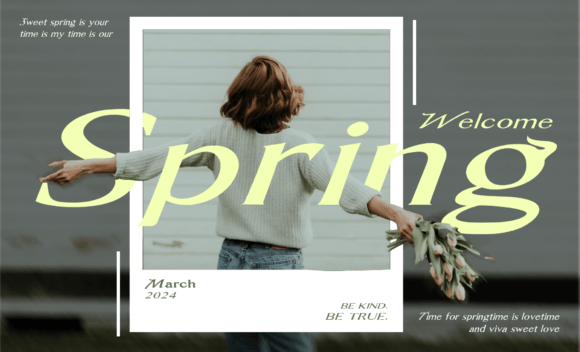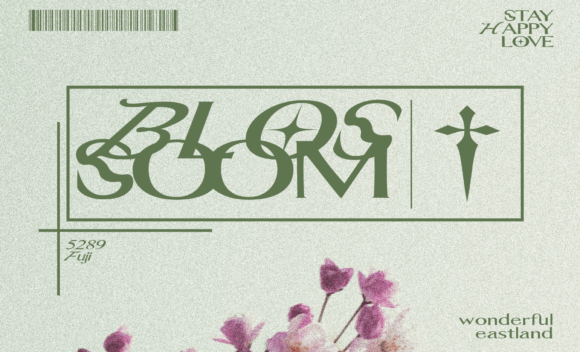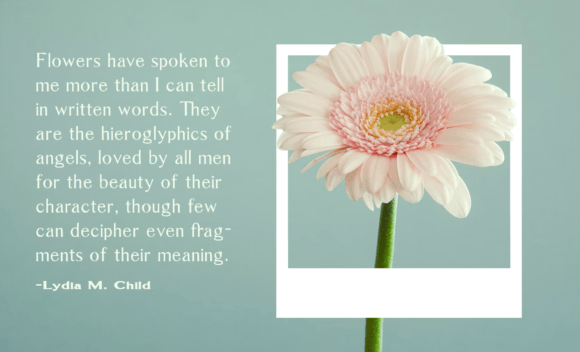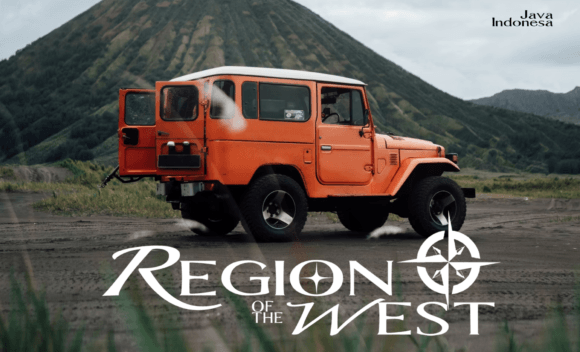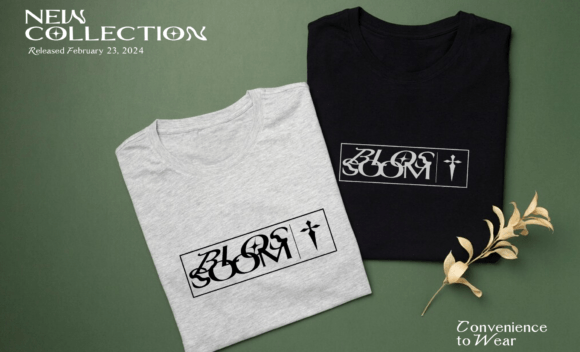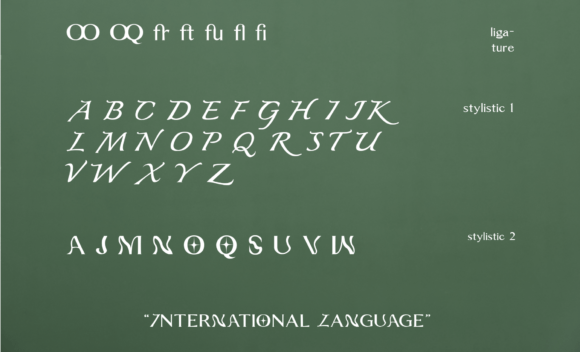
Introduction to Gwenda Times Font
Have you ever found yourself scrolling through a design feed, feeling inspired by the perfect combination of font and color? That’s exactly what happened to me the day I stumbled upon Gwenda Times Font. As a designer, there’s nothing quite like discovering a high-quality font that elevates your creative project to the next level. The clean lines and sophisticated feel of Gwenda Times Font instantly caught my attention, and I knew I had to learn more.
As a valuable design resource, Gwenda Times Font is a game-changer for any creative endeavor. Whether you’re working on a trendy streetwear campaign or a sophisticated corporate presentation, this font is sure to deliver. With its transparent background and free download option, it’s accessible to designers of all levels. But what really sets Gwenda Times Font apart is its ability to seamlessly transition from casual to professional styles, making it an invaluable asset for any design project.
Get ready to unlock the full potential of your creative vision with Gwenda Times Font – a true modern classic that’s about to become your go-to design companion.
Key Features of Gwenda Times Font
- High-quality, professional design resource ideal for creative projects and publications
- Features a clean, elegant design with a transparent background, allowing for seamless integration with any background
- Includes a wide range of characters, including uppercase and lowercase letters, numbers, and punctuation marks
- Supports a range of languages, making it a versatile choice for international publications and creative projects
- Perfect for use in logos, headings, and body text in various creative projects, including magazines, newspapers, and websites
Honest Review: Gwenda Times Font
I recently stumbled upon the Gwenda Times Font, a free design resource that caught my attention. As a designer, I appreciate high-quality fonts that can elevate a creative project.
What works well is the font’s clean and elegant design. It’s perfect for body text, and the serif style adds a touch of sophistication to any layout. The Gwenda Times Font is also great for use on a transparent background, allowing the text to take center stage.
- ✨ High-quality design: The font is well-crafted and has a professional feel to it.
- ✨ Easy to read: The font is clear and easy to read, even at smaller font sizes.
- ⚠️ Limited character set: The font only includes a limited character set, which may not be suitable for projects that require a wide range of characters.
- ⚠️ No bold weight: The font only comes in a regular weight, which may not be ideal for headings or emphasis.
Overall, the Gwenda Times Font is a solid choice for designers looking for a high-quality, free font. While it has its limitations, it’s a great resource to have in your design arsenal.
Use the Gwenda Times Font on a transparent background to create a high-quality design that stands out. Experiment with different font sizes and styles to add visual interest to your project. You can also use the font in combination with other design elements, such as images and shapes, to create a unique and creative project.
The Gwenda Times Font is suitable for a wide range of creative projects, including logos, brochures, and business cards. You can also use the font to create social media graphics, flyers, and other promotional materials. With its high-quality design and free download option, the Gwenda Times Font is a great resource for designers and non-designers alike.